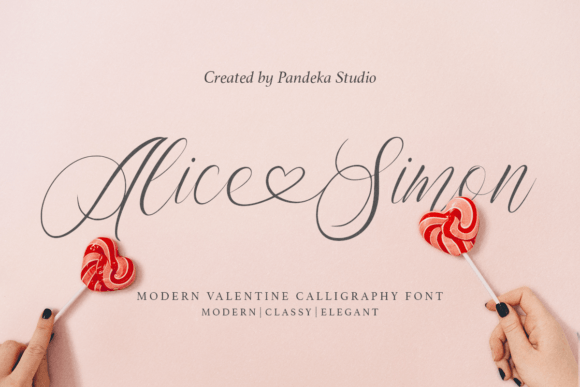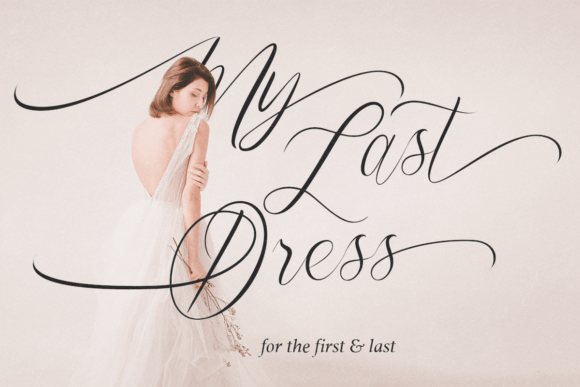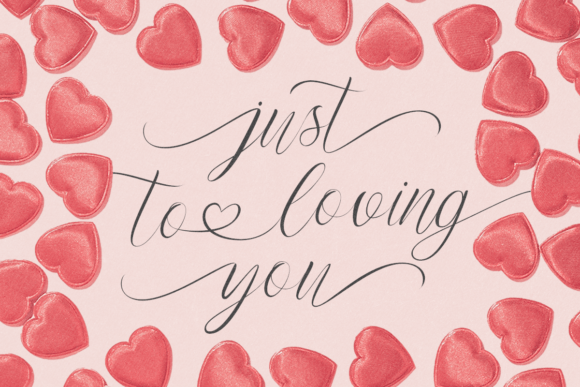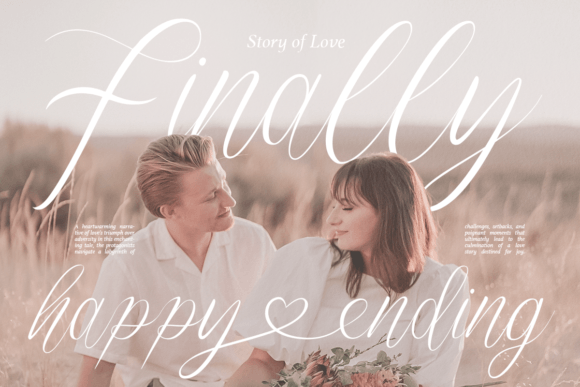
Alice Simon Font: Elegant Calligraphy Script for Wedding Design
About the Alice Simon Font
Experience the unique personality of Alice Simon Font, a font designed for impact. Alice Simon is a modern calligraphy script perfect for wedding invitations, calligraphy logos for branding, elegant websites, personalizing gifts, social media posts, and anything else your heart desires!
Included with Alice Simon is a full set of beginning and ending lowercase swashes, uppercase swashes, and heart connector swashes to create a realistic handwritten calligraphy look for your designs.
Alice Simon’s elegant, yet slightly playful personality makes it ideal for branding projects requiring a touch of sophistication, particularly logos, short headlines, and social media graphics. It excels in applications where legibility isn’t paramount, such as invitations, short quotes, or packaging details. Avoid using it for body text or lengthy paragraphs; its flowing script style isn’t optimized for extended reading.
Pairing Alice Simon with a clean sans-serif like Lato or Open Sans for body copy creates a strong visual balance. For a more classic feel, consider pairing it with a serif like Playfair Display. A geometric sans-serif like Montserrat can add a modern contrast to its calligraphic curves.
Its inherent elegance makes Alice Simon well-suited for brands focused on luxury, beauty, fashion, or handcrafted goods. The font’s charming personality prevents it from being fitting for serious or corporate settings.
Alice Simon Font Usage Examples
Alice Simon Font Example